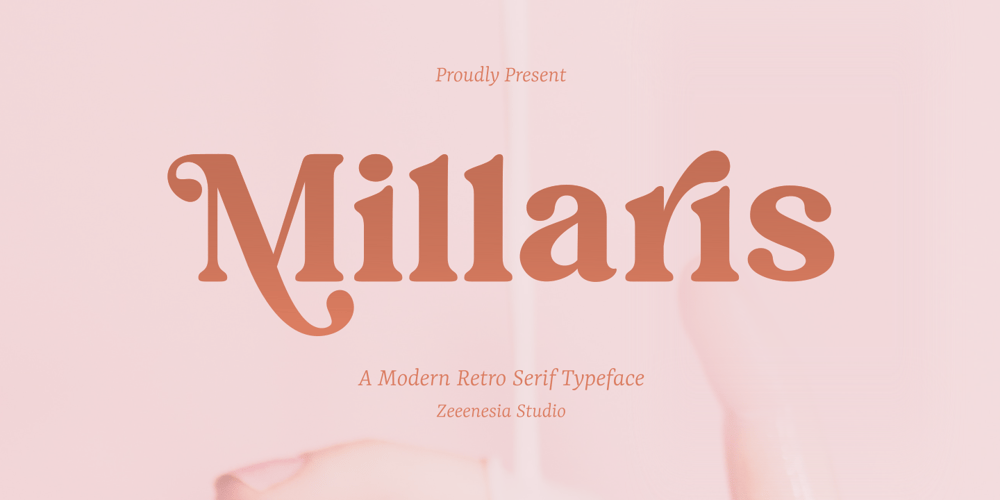
Millaris
Millaris font
Millaris Font Family was designed by Doni Purwoko and published by Zeenesia Studio. Millaris contains 1 styles and family package options. Introducing Millaris is a modern and retro serif font. Millaris is very versatile font that works great in large. well-suited for advertising, branding, logotypes, packaging, titles, headlines and editorial design. I created more much alternates variant and much natural ligatures to make this font very classy and look so beauty. Bright Almond was built with open type features make your project will be perfect.We hope you enjoy the font, please feel free to comment if you have any thoughts or feedback.Thanks for purchasing and glad to help you!